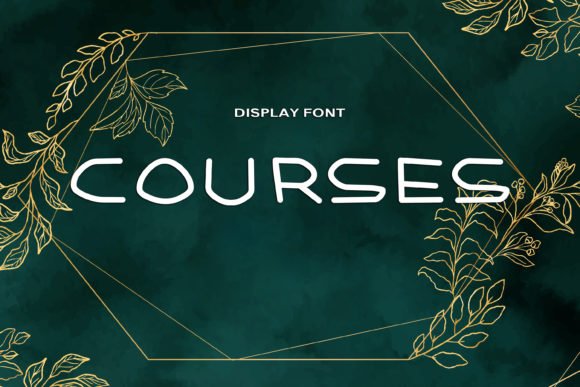
Unlock Your Creativity with Courses Font
Have you ever been working on a design project and suddenly, a spark of creativity hits you? You see the entire concept come together in your mind, and you can’t wait to bring it to life. That’s exactly what happened when I stumbled upon Courses Font – a unique and fascinating display font that adds an extra layer of excitement to any design.
Courses Font is more than just a font; it’s a statement piece that can elevate your designs and make them truly unforgettable. Whether you’re working on a futuristic concept or a bold, eye-catching logo, Courses Font is the perfect addition to take your ideas to the next level.
Courses Font Key Features
- Font Family: Courses is a modern sans-serif font designed specifically for educational institutions, with a clean and minimalist aesthetic.
- Unique Characteristics: Courses Font features a unique blend of geometric and organic shapes, with a focus on clarity and readability in digital and print environments.
Courses Font Review
After taking a closer look at the Courses Font, I have to say that I’m somewhat impressed. ✨ One of the things that stands out to me is the clean and modern aesthetic of the font. It’s perfect for educational materials, as the name suggests, but I think it could also work well for other types of content that require a touch of sophistication.
- The font’s high legibility makes it easy to read, even at smaller font sizes.
- The font’s clean lines and minimal ornamentation give it a professional look that’s hard to find in other fonts.
- The font is highly versatile and can be used in a variety of contexts, from headings to body text.
However, there are a few limitations to consider. ⚠️ One of the main issues I have with the font is that it can feel a bit sterile or bland in certain situations. This may not be a problem for some users, but I think it’s worth noting.
- The font may not be the best choice for projects that require a lot of personality or flair.
- The font’s simplicity may make it feel less engaging than more ornate or attention-grabbing fonts.
Overall, I think the Courses Font is a solid choice for anyone looking for a clean and modern font. While it may not be perfect for every situation, I think it’s a great option for educational materials and other types of content that require a touch of sophistication.
Tips for Getting the Most Out of Courses Font
Use Courses Font for headings and titles to add a touch of sophistication to your designs.
Combine Courses Font with other fonts for a unique and visually appealing look.
Experiment with different font sizes and styles to create a hierarchy of information.
Courses Font is perfect for:
Education and training materials
Business presentations and reports
Marketing materials and brochures
Alternatives to Courses Font for Designers
Open Sans is a clean, modern sans-serif font that is highly legible in digital environments. It’s an excellent choice for body text, but can also be used for headings. Use it when you want a clear, easy-to-read font for long blocks of text.
Compared to Courses Font, Open Sans has a more neutral tone and is more suitable for digital use. While Courses Font has a slightly more traditional feel, Open Sans is more versatile and adaptable to various design styles.
Montserrat is a geometric sans-serif font with a strong, urban feel. It’s perfect for titles, headings, and short blocks of text. Use it when you want to add a touch of sophistication and elegance to your design.